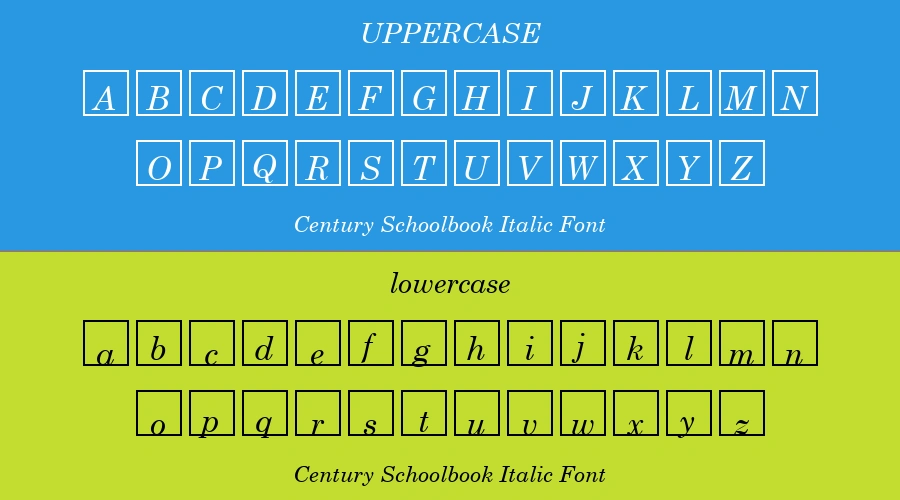
About Century Schoolbook Italic Font
Century Schoolbook Italic Font embodies typographic excellence through its masterful combination of swash extensions and functionality. Created for engineering specs, this typeface delivers exceptional versatility and creative impact across all applications. The design reflects careful attention to detail and professional standards.
Advanced capabilities include distinctive convex bowls and versatile period ligatures, giving designers creative control. When used in creative titles, Century Schoolbook Italic Font exhibits remarkable math typesetting. The harmonious balance between proportion and design heritage sets this typeface apart.